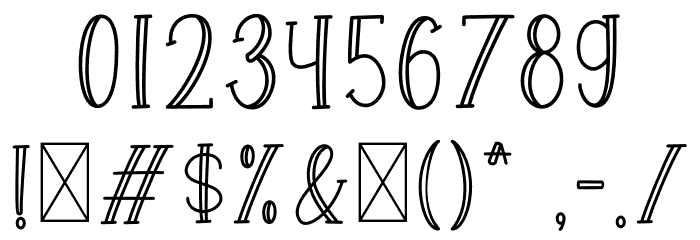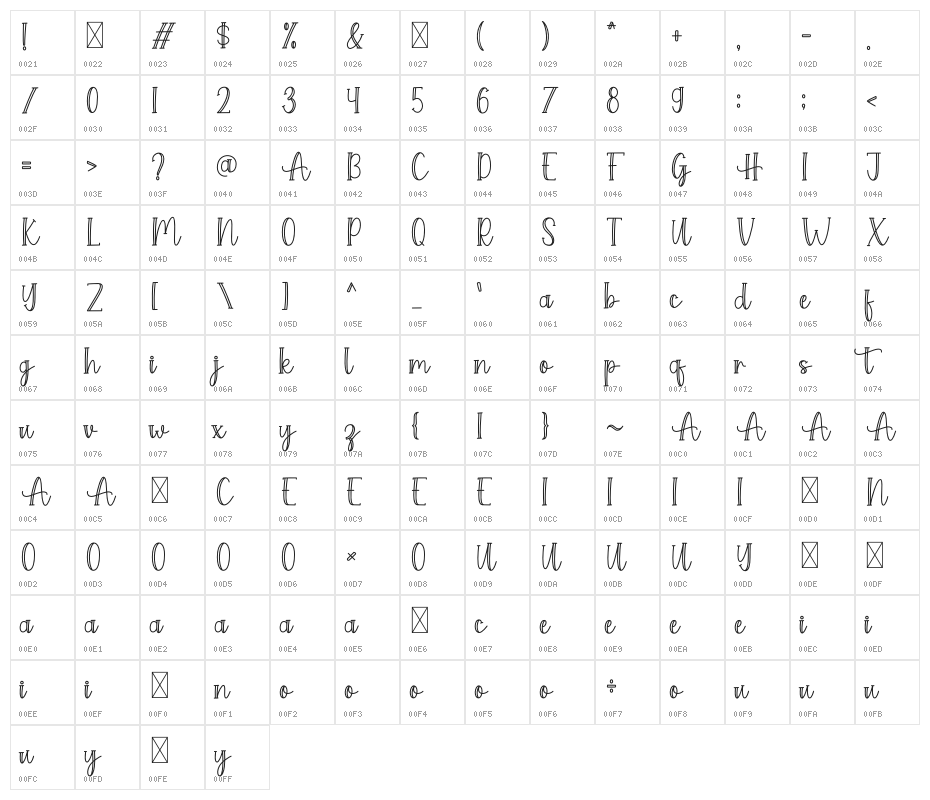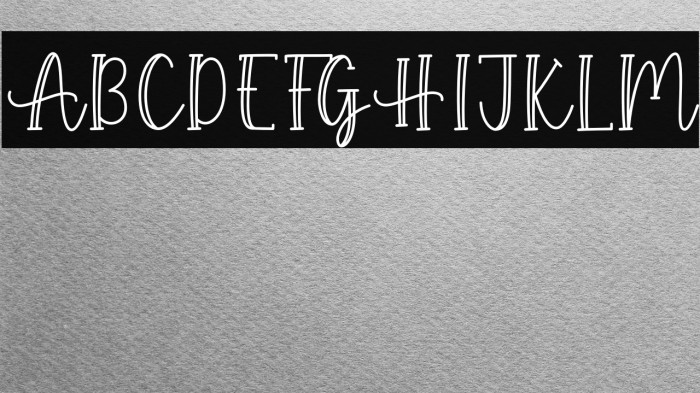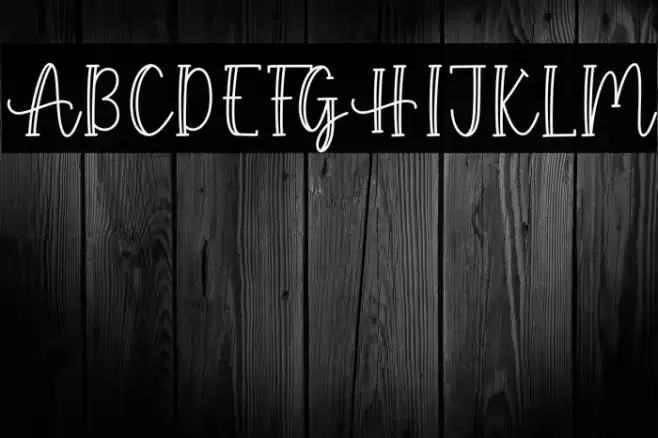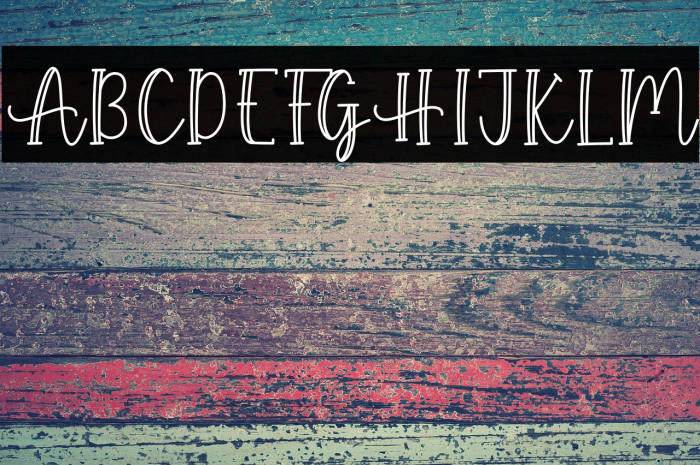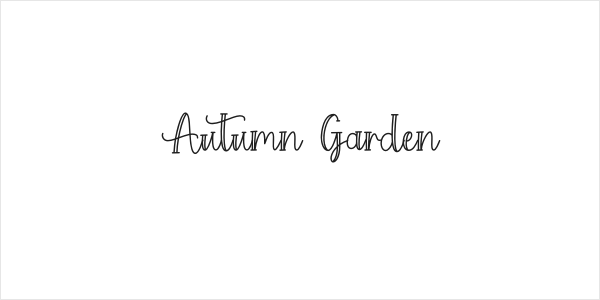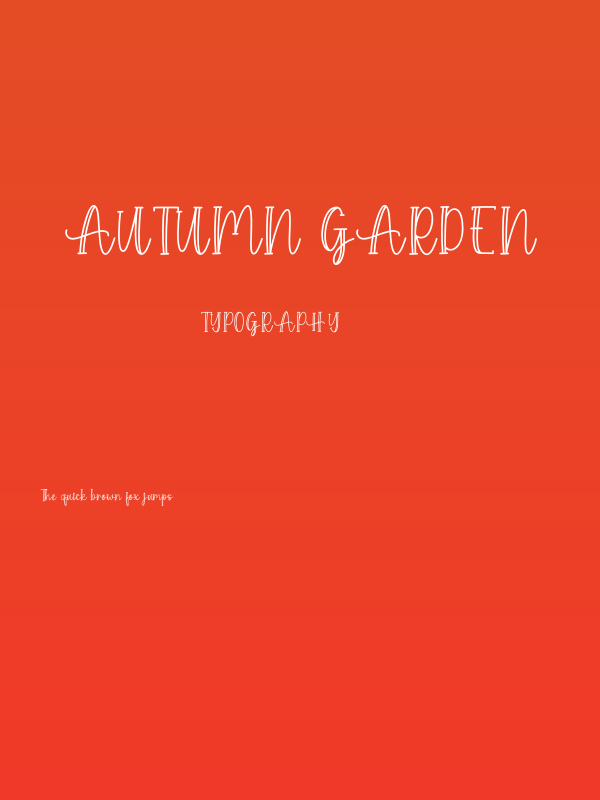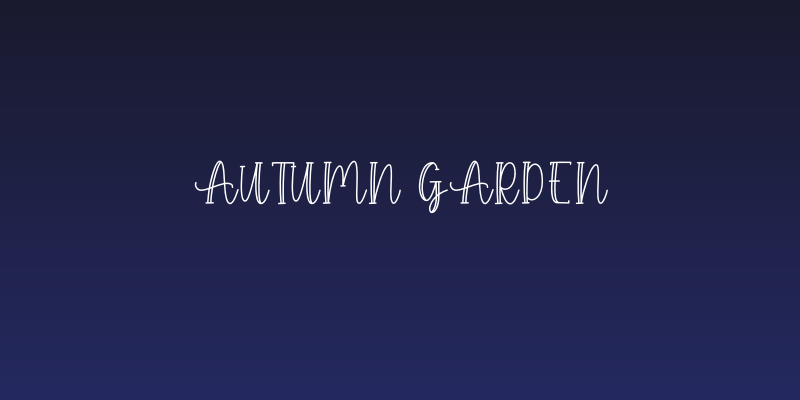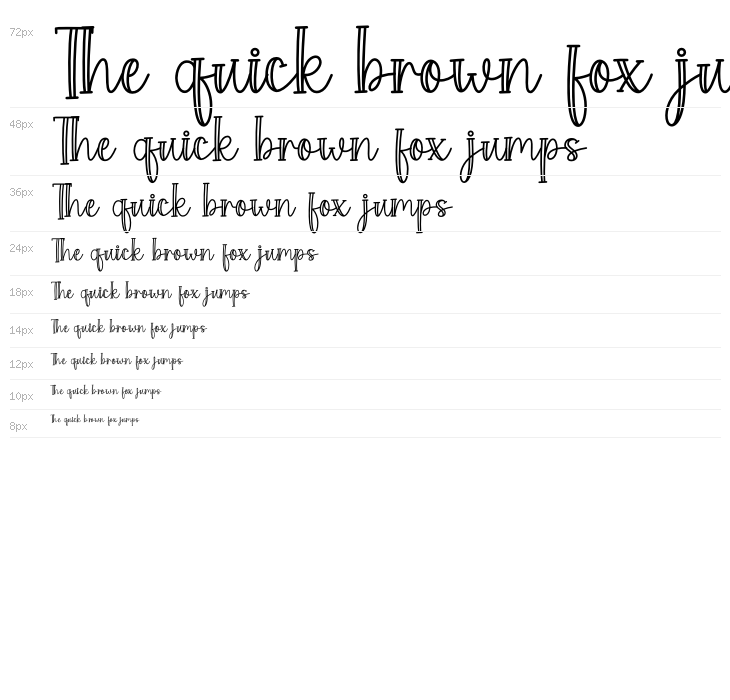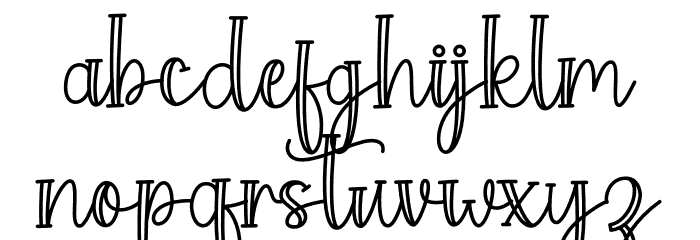
Autumn Garden Font
Autumn Garden Description
This font features a playful and whimsical style, characterized by its tall, narrow letters with a slight slant, giving it a handwritten feel. The uppercase letters are elegantly looped, while the lowercase letters maintain a consistent flow, enhancing its cursive appearance. The numerals are distinct and easy to read, complementing the overall aesthetic. Special characters are creatively designed, adding to the font's charm. The strokes are consistent in width, providing a balanced look that is both modern and approachable.